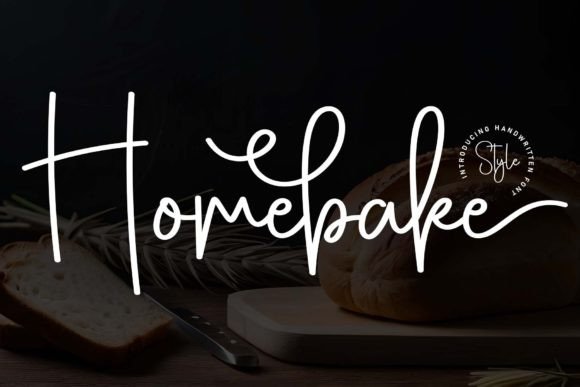
Introducing Homebake Font, the sweet and friendly handwritten font that will elevate your designs to a whole new level! Created by andikastudio, this font is the perfect choice for design enthusiasts searching for the best font to bring their creative visions to life.
With its natural and unique style, Homebake Font adds a touch of warmth and personality to any project. Whether you're working on a logo, a website, or a social media post, this font will captivate your audience and leave a lasting impression.
Why settle for ordinary fonts when you can choose Homebake Font? Its versatility knows no bounds, allowing you to explore endless possibilities and create designs that truly stand out from the crowd. Let your imagination run wild as you experiment with different styles and layouts.
Imagine a world where your designs come to life with every stroke of the Homebake Font. Its handcrafted appeal creates a genuine connection with your audience, evoking emotions of comfort, nostalgia, and authenticity. It's like a warm hug in a digital world.
Homebake Font is more than just a font – it's an experience. It's the secret ingredient that transforms your designs from ordinary to extraordinary. With its irresistible charm, this font will make your message impossible to ignore.
Experience the power of Homebake Font today and see how it effortlessly brings your designs to life. Get ready to leave a lasting impression and make your mark in the design world. The time has come to unleash your creativity and let Homebake Font be your guiding light.